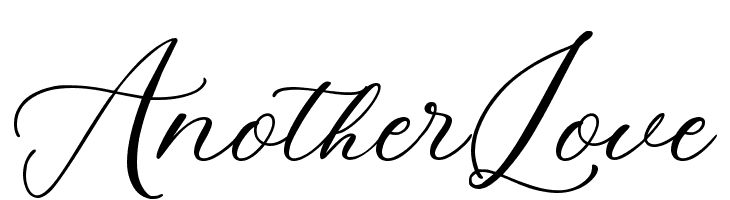
A bold, distressed serif font with a vintage, italicized style.
A pixelated, retro font with a digital, blocky style.
A charming and fluid script font with elegant curves and a cohesive flow.
An expressive, hand-drawn font with a whimsical and artistic style.
A bold, modern font with clean, geometric shapes and consistent stroke thickness.
A classic serif font with elegant, elongated letterforms and refined strokes.
A sleek, futuristic italic font with angular, geometric characters.
A bold, cursive handwritten font with dynamic and playful strokes.
A sleek, thin, italicized font with a modern and dynamic style.
A bold, hand-drawn font with high contrast and an expressive, artistic style.
Bold, playful handwritten font with organic, irregular strokes.
A bold, geometric outline font with a futuristic and technical style.
A playful and energetic handwritten font with bold, flowing strokes.
A bold, high-contrast slab serif font with playful and decorative elements.
A graceful and elegant script font with flowing, cursive letters.
A flowing, elegant cursive font with interconnected characters.
A lively handwritten font with fluid, dynamic strokes and a modern artistic flair.
A playful and whimsical script font with flowing, interconnected letters.
A modern, italicized outline font with sleek, elongated characters.
A playful, hand-drawn font with flowing, cursive-like strokes.
A refined serif font with high contrast and elegant curves, perfect for formal use.
An elegant script font with graceful curves and sophisticated style.
A bold, hand-drawn font with playful, irregular characters and mixed patterns.
A modern, hollow, inverse font with geometric outlines.
An elegant serif font with a flowing italic style and light strokes.
A bold, geometric font with a filled, decorative style and art deco influences.
A playful, hand-drawn font with a bold, rounded style.
A bold, italicized font with a distressed, vintage texture.
A bold, playful font with rounded strokes and a modern, dynamic style.
A novelty font featuring marching figure silhouettes.
A bold, italicized font with sharp, angular letterforms and a futuristic style.
A bold, decorative font with a 3D effect and intricate detailing.
A modern italic font with bold, condensed uppercase and artistic numbers.
A bold, geometric font with sharp angles and a modern, edgy style.